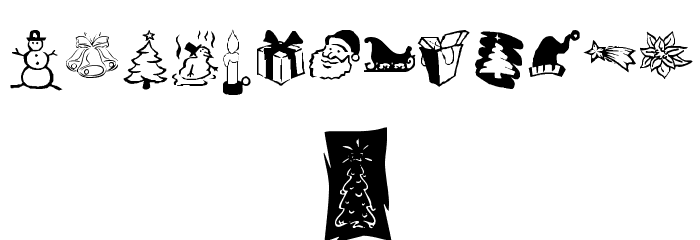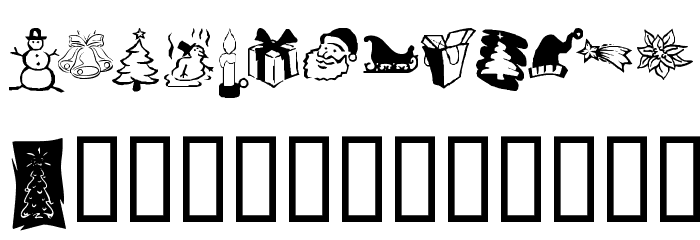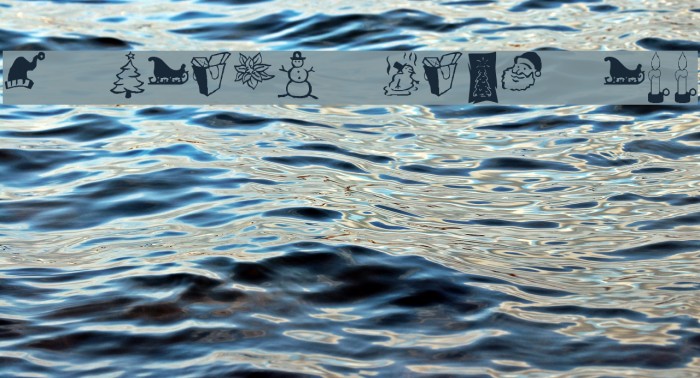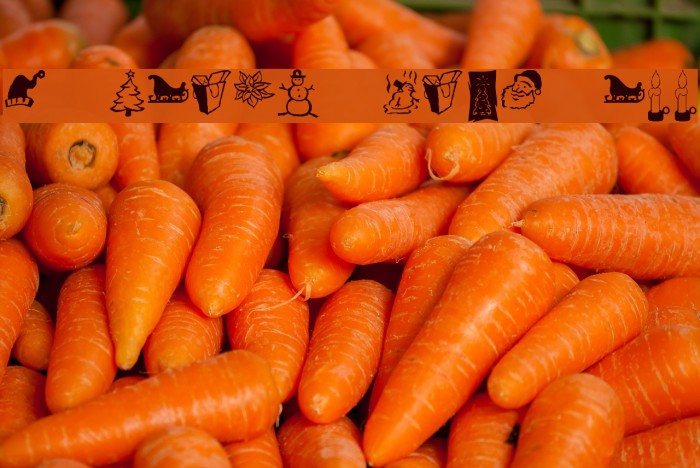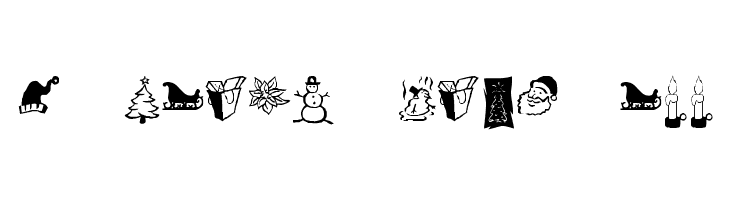
KR Christmas Dings Three Font
This is a decorative font featuring a variety of Christmas-themed dingbats. Each character is represented by a unique holiday icon, including snowmen, bells, Christmas trees, candles, Santa Claus, gifts, and more. The style is playful and festive, capturing the essence of the holiday season. The icons are bold and clear, making them suitable for decorative purposes. This font does not include traditional alphanumeric characters but instead focuses on providing a range of symbols that can be used to enhance holiday-themed designs.
A festive decorative font with Christmas-themed icons.
- Proposed Projects: Ideal for holiday cards, festive invitations, Christmas decorations, and seasonal marketing materials.
- Use Case: Logos, Headlines, Decorative elements